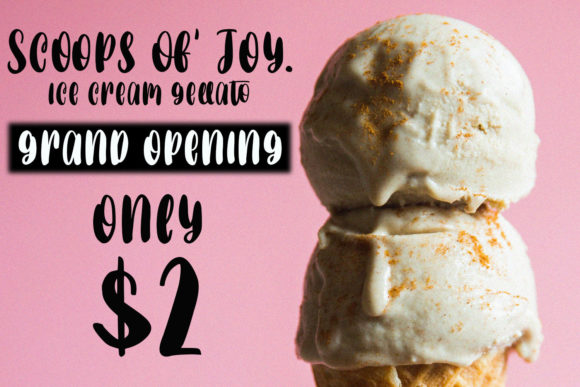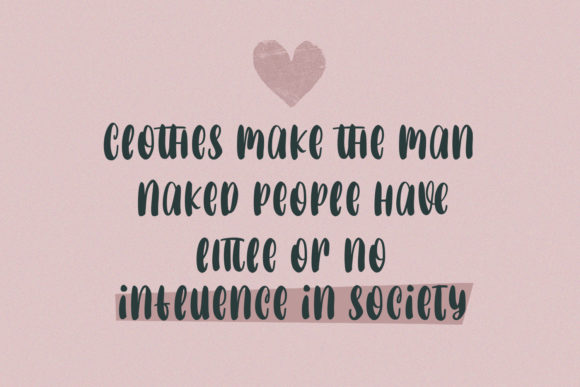
Sofia Hives Font
db-ku.com - Script & Handwritten -- Sofia Hives is a fancy handwritten script font. With a modern yet whimsical style, this font has the potential to bring each of your creative ideas to the highest level!